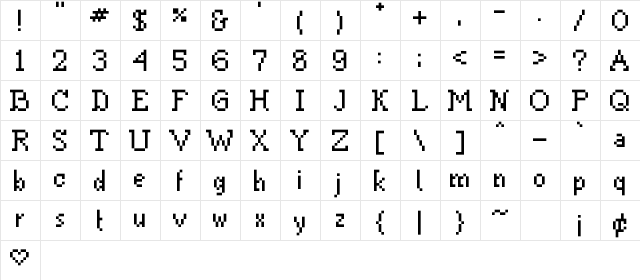
ThisSmacky Medium
Design Context for ThisSmacky Typeface
ThisSmacky is a composed and adaptable typeface that performs quietly and consistently across a wide range of design contexts.